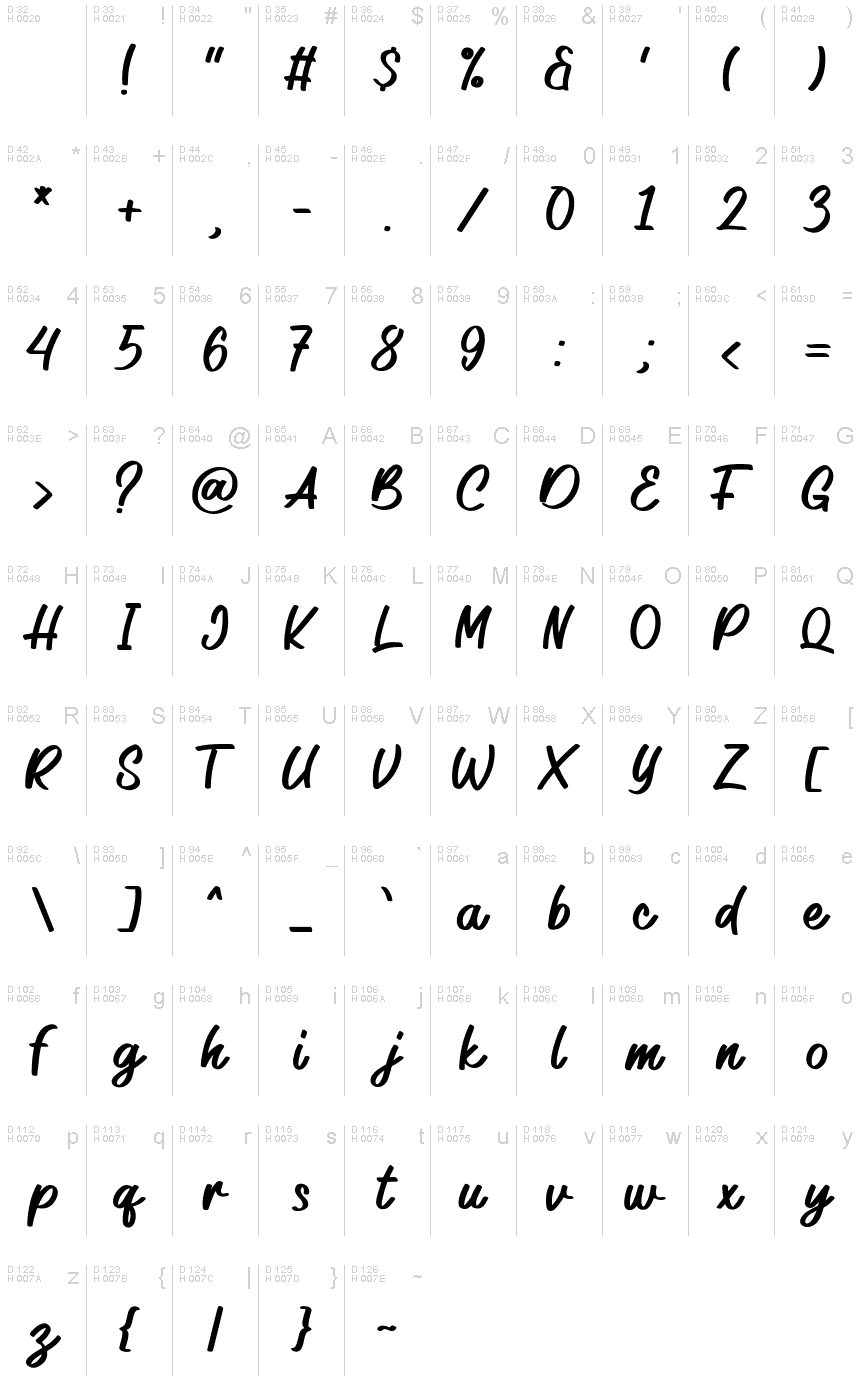
Legendday
Introducing Legendday, the perfect handwritten font for your creative projects. Designed by Qwrtype Foundry, this semi-light font style adds a touch of elegance and sophistication to any design. Whether you're working on invitations, logos, or social media graphics, Legendday will give your project a unique and personal touch. With its smooth curves and natural flow, this handwritten font is suitable for a variety of projects - from wedding stationery to restaurant menus! Create stunning designs with ease using the versatile Legendday font.